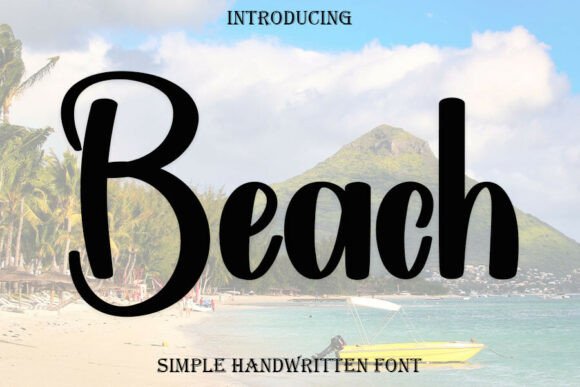
Discovering the Perfect Beachy Keen Font for Your Designs
There’s nothing quite like the feeling of stepping onto a sandy beach, feeling the cool ocean breeze on your skin, and watching the sun set over the waves. For designers, it’s that same feeling of serenity and joy that we strive to capture in our work. And sometimes, it’s all about the right font.
Enter the Beach Font, a sweet and cursive handwritten font that’s perfect for adding a touch of whimsy and romance to your designs. With its gentle curves and playful feel, it’s the perfect choice for branding, logos, and marketing materials that need to stand out from the crowd. Whether you’re working on a wedding invitation, a fashion lookbook, or a marketing campaign, the Beach Font is sure to bring a smile to your clients’ faces.
Key Features of Beach Font
- Size: Beach Font comes in a single weight, making it a versatile and easy-to-use font for various design applications.
- Resolution: Beach Font is designed to be resolution-independent, allowing it to scale seamlessly from small text to large headings without losing its unique characteristics.
- Unique Characteristics: Beach Font features a distinctive, hand-drawn feel with subtle imperfections, giving it a warm and inviting personality that’s perfect for beach-themed designs, summer projects, or any application where a relaxed, casual tone is desired.
- Legibility: Despite its casual appearance, Beach Font is designed to be highly legible, making it suitable for a wide range of applications, from body text to headings.
- Language Support: Beach Font includes comprehensive language support, covering a wide range of languages, including Latin, Greek, and Cyrillic scripts, ensuring that it can be used in a variety of cultural and linguistic contexts.
Designer Review: Beach Font
Beach Font is a delightful, cursive script font that screams summer vibes. ✨ I love the way it flows, with gentle curves and whimsical flair. The font’s playfulness makes it perfect for beach-themed projects, such as branding for surf schools or packaging for tropical treats.
The font’s strengths lie in its legibility, even at smaller sizes. ✨ It’s also surprisingly versatile, working well for both digital and print applications. I appreciate the thoughtful touch of a beach-inspired alternates pack, which adds an extra layer of charm to the font.
- ⚠️ The font’s whimsical nature may not be suitable for formal or serious projects.
- ⚠️ Some users may find the font’s curves too playful or distracting for certain applications.
Overall, I think Beach Font is a wonderful addition to any designer’s toolkit. While it may not be perfect for every project, its unique charm and versatility make it a great choice for designers looking to add some personality to their work. ✨ With a little creativity, Beach Font can help you create projects that truly stand out.
Tips for Getting the Most Out of Beach Font
Beach Font is perfect for creating beach-themed designs, such as invitations, posters, and social media graphics. To get the most out of it, use it in conjunction with other beach-themed elements, such as palm trees, seashells, and sunglasses.
Beach Font is commonly used for:
- Beach-themed party invitations and decorations
- Summer vacation advertisements and promotions
- Beach-inspired social media graphics and posts
- Merchandise and apparel design
Lato is a sans-serif font that is highly legible and versatile. It is suitable for a wide range of designs, from corporate materials to digital products. Lato has a more modern feel compared to Beach Font, which is more casual and relaxed. Use Lato when you need a clean and professional font that conveys a sense of sophistication.
Open Sans is a modern sans-serif font that is highly readable and suitable for digital applications. It has a more neutral tone compared to Beach Font, which is more playful and beachy. Use Open Sans when you need a font that is easy to read on screens and provides a clean and minimalist look.
Pacifico is a script font that is perfect for adding a touch of elegance and sophistication to your designs. It has a more refined feel compared to Beach Font, which is more casual and laid-back. Use Pacifico when you need a font that adds a sense of luxury and high-end quality to your designs.
The recommended font size for using Beach Font is between 12pt and 24pt. This range allows the font to be legible and visually appealing, while also providing sufficient detail for the beach-inspired design elements.